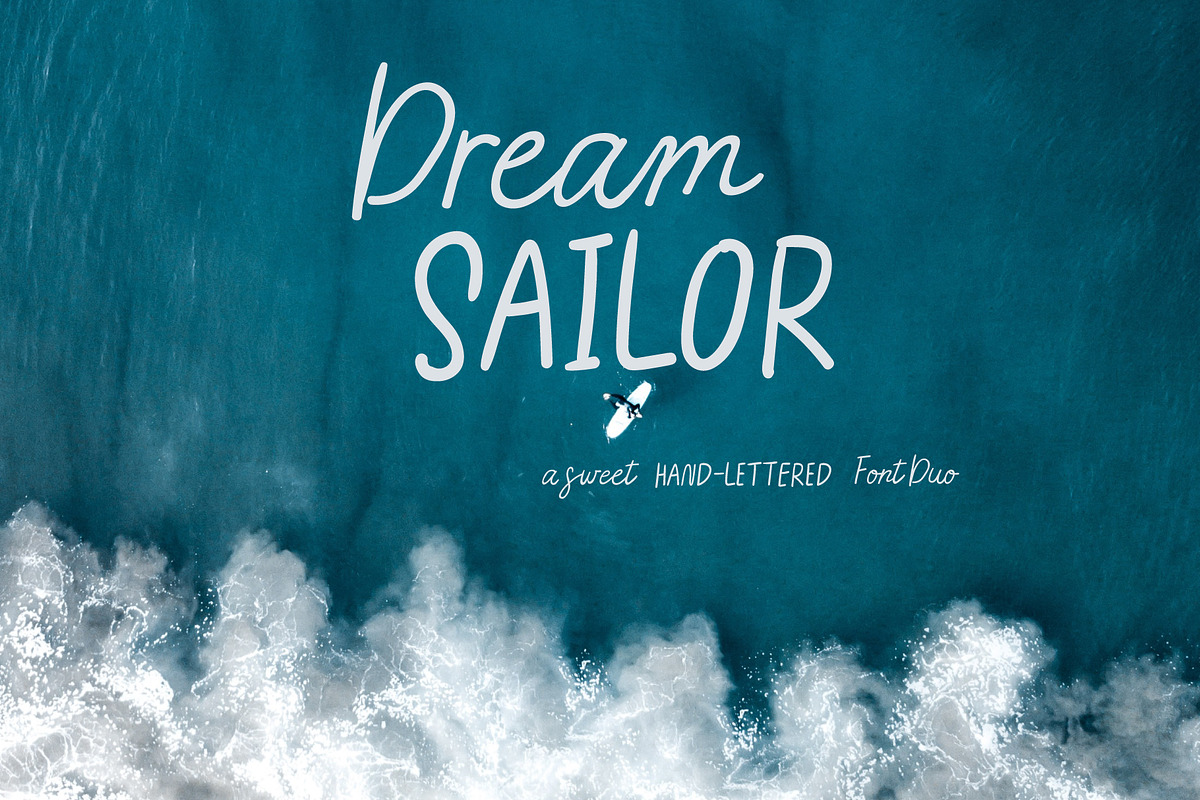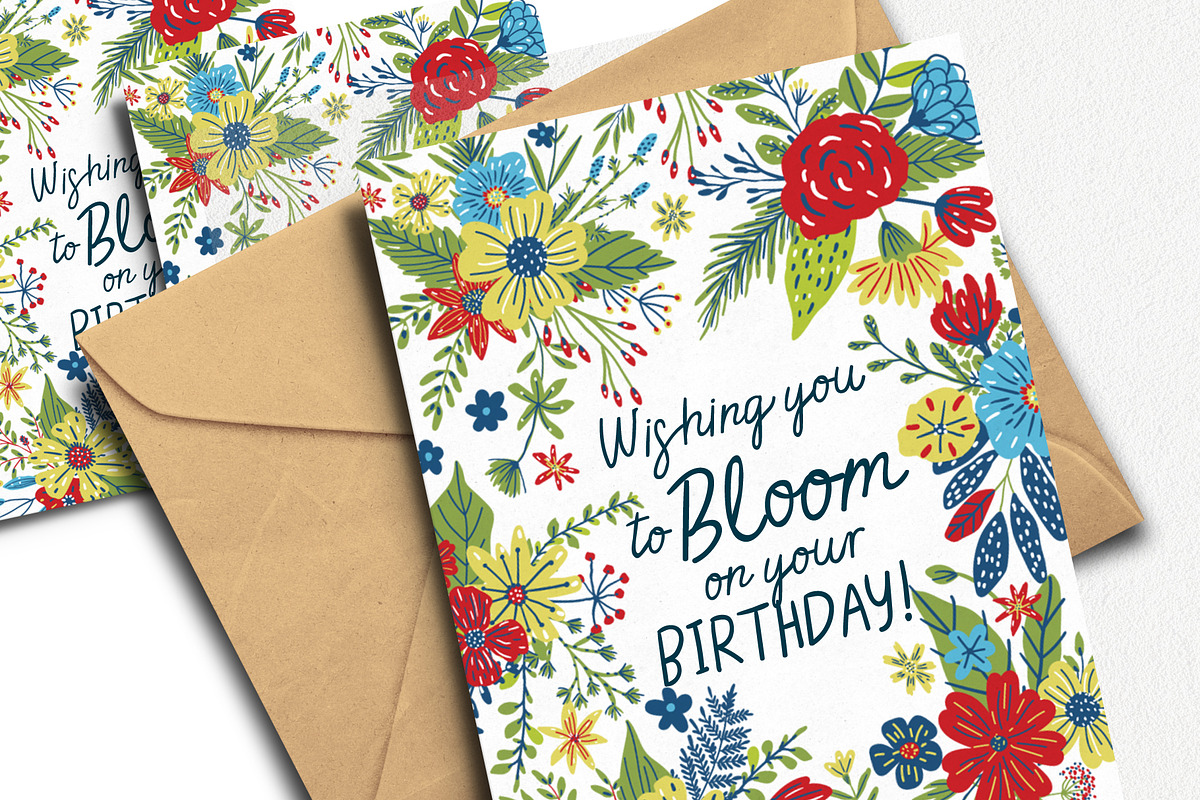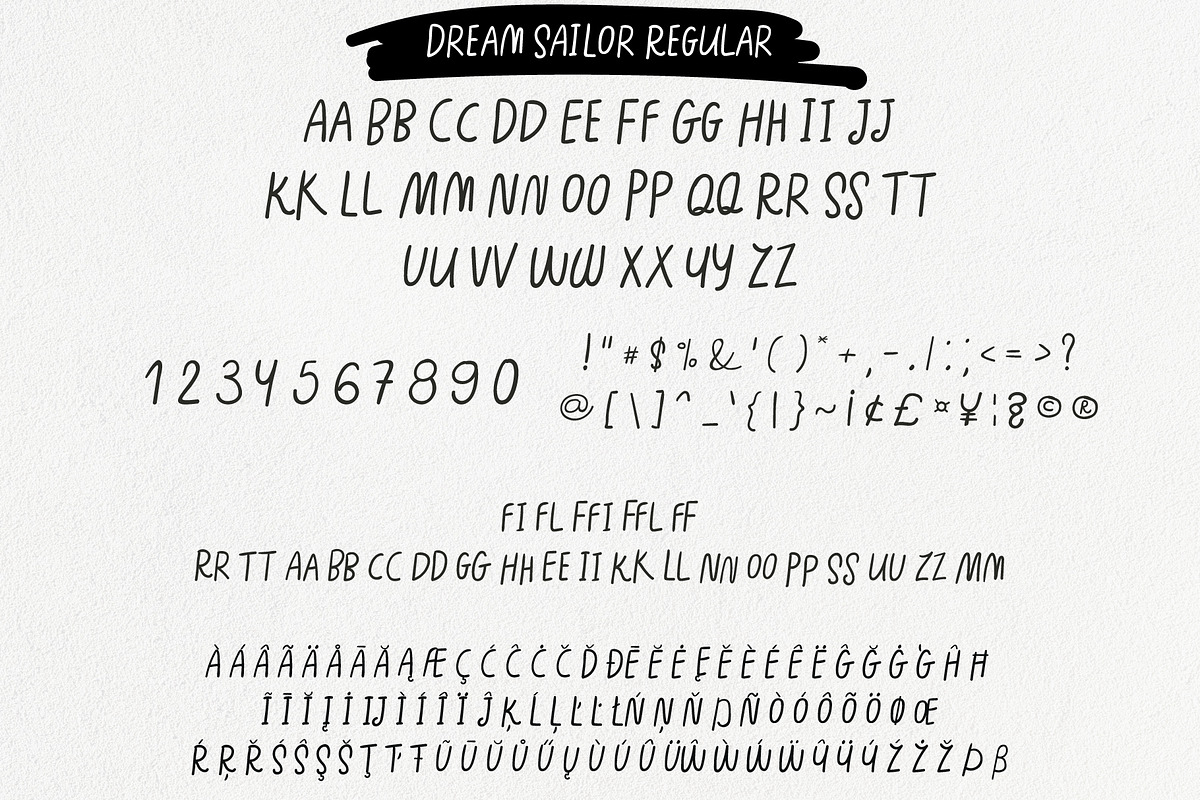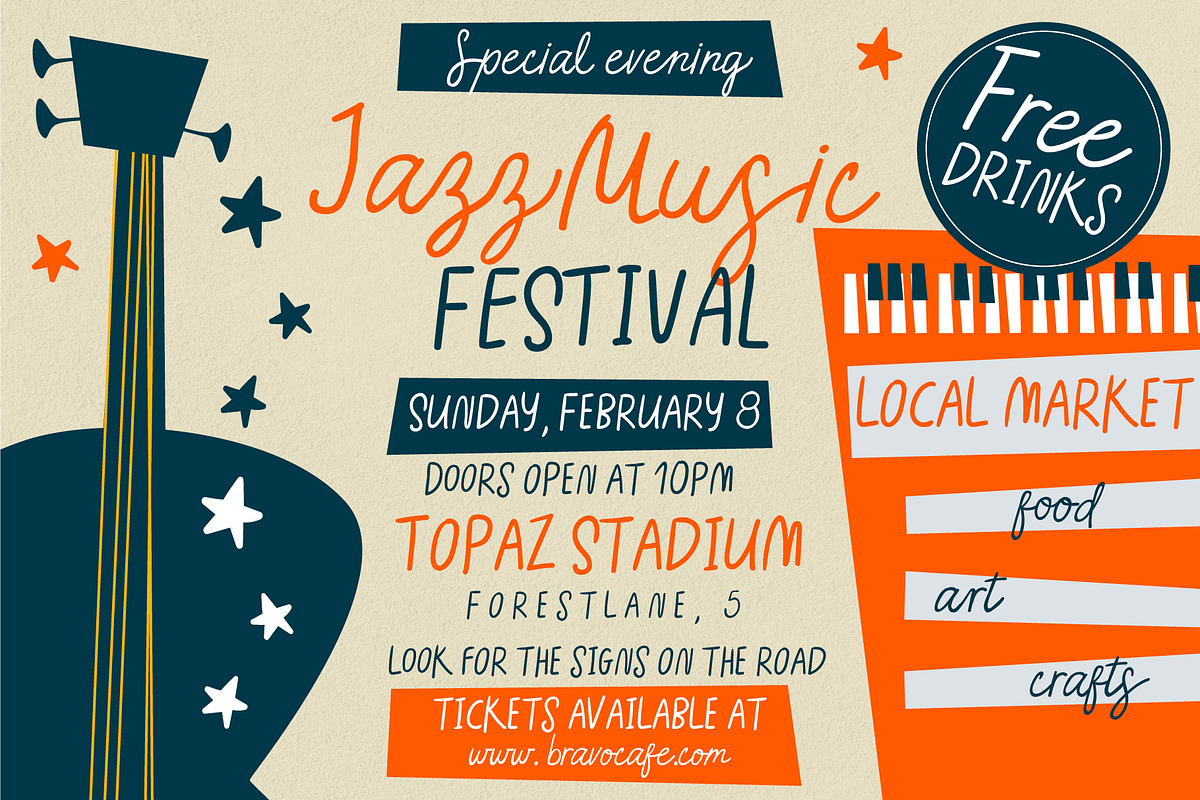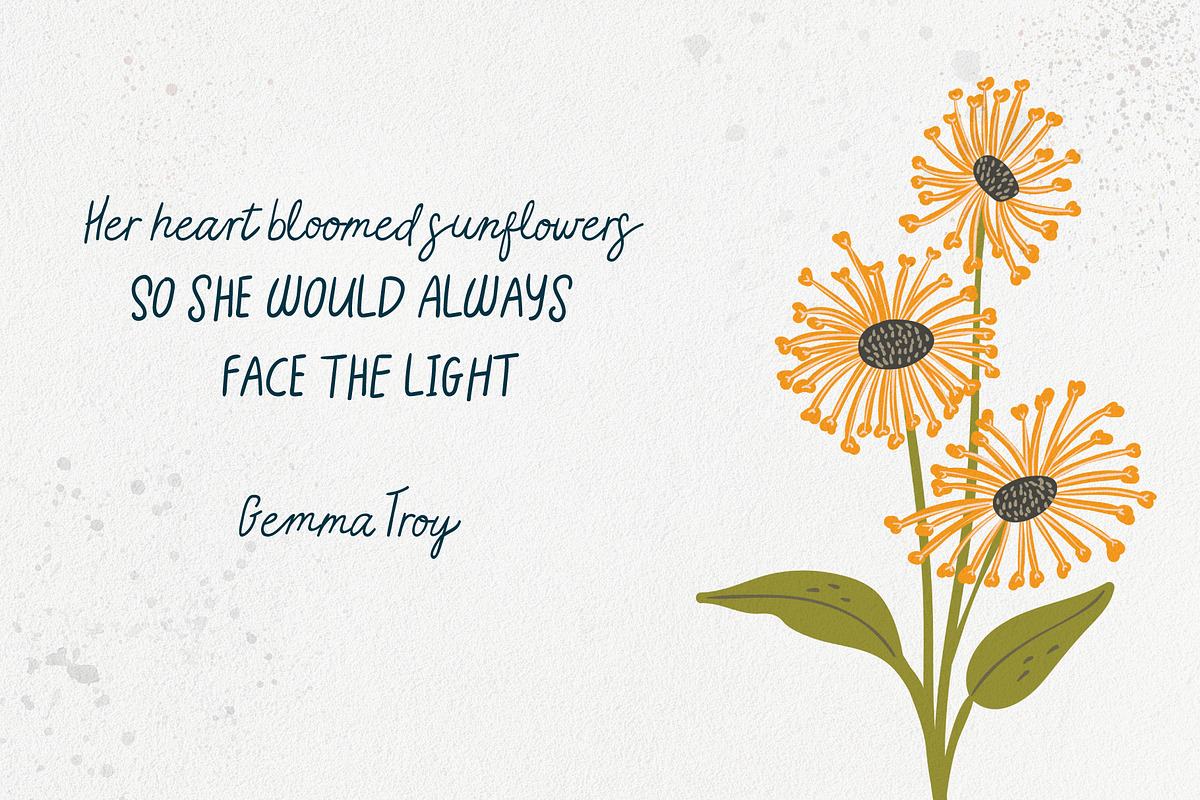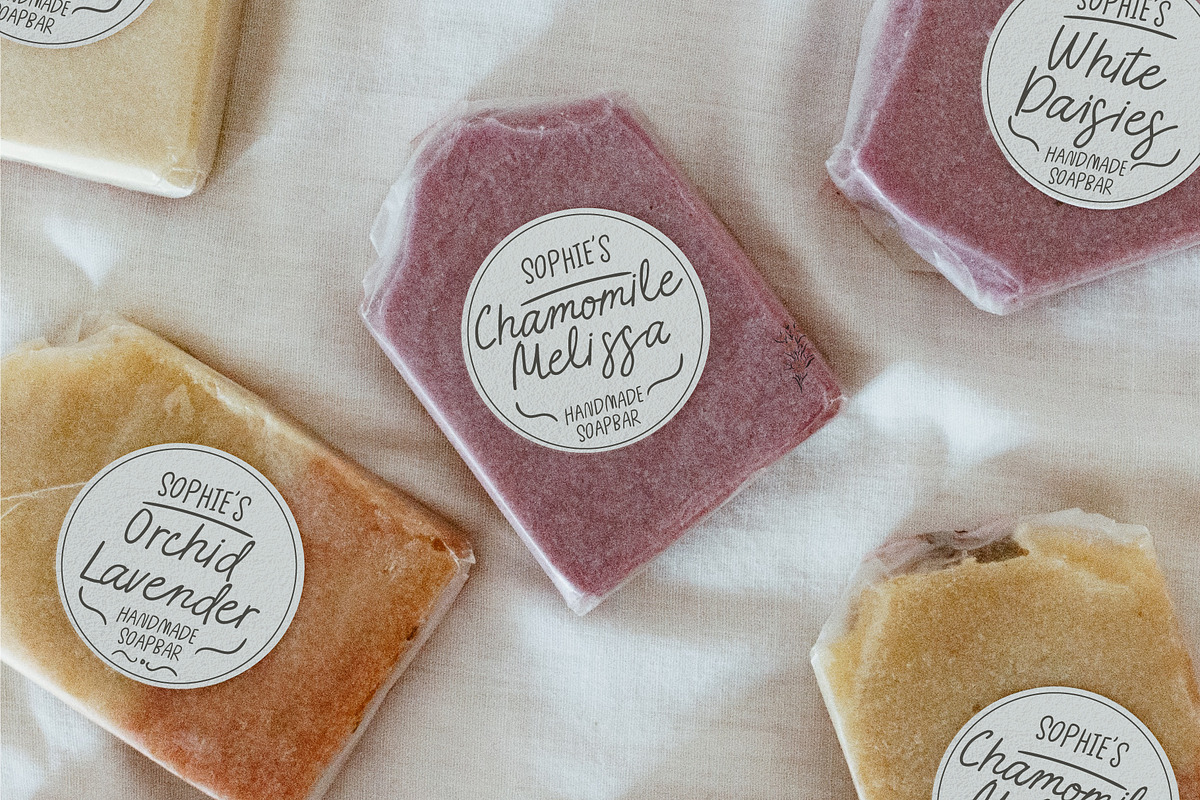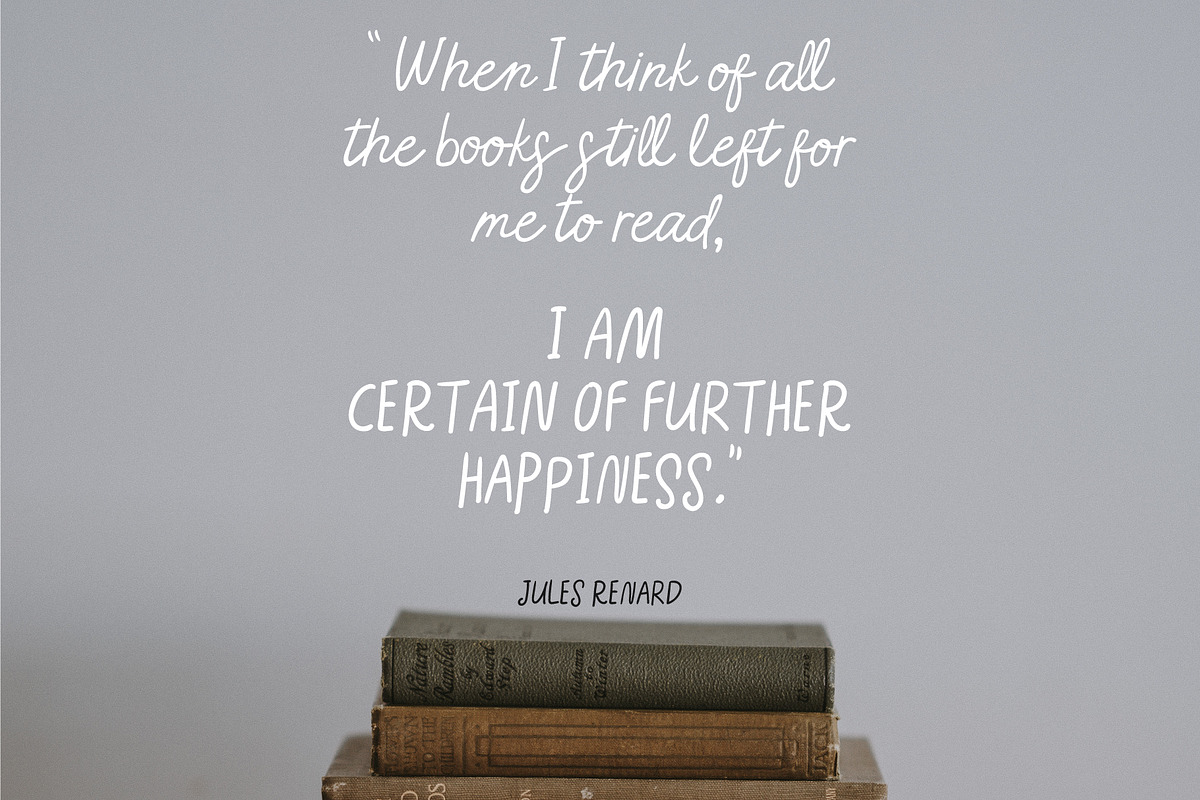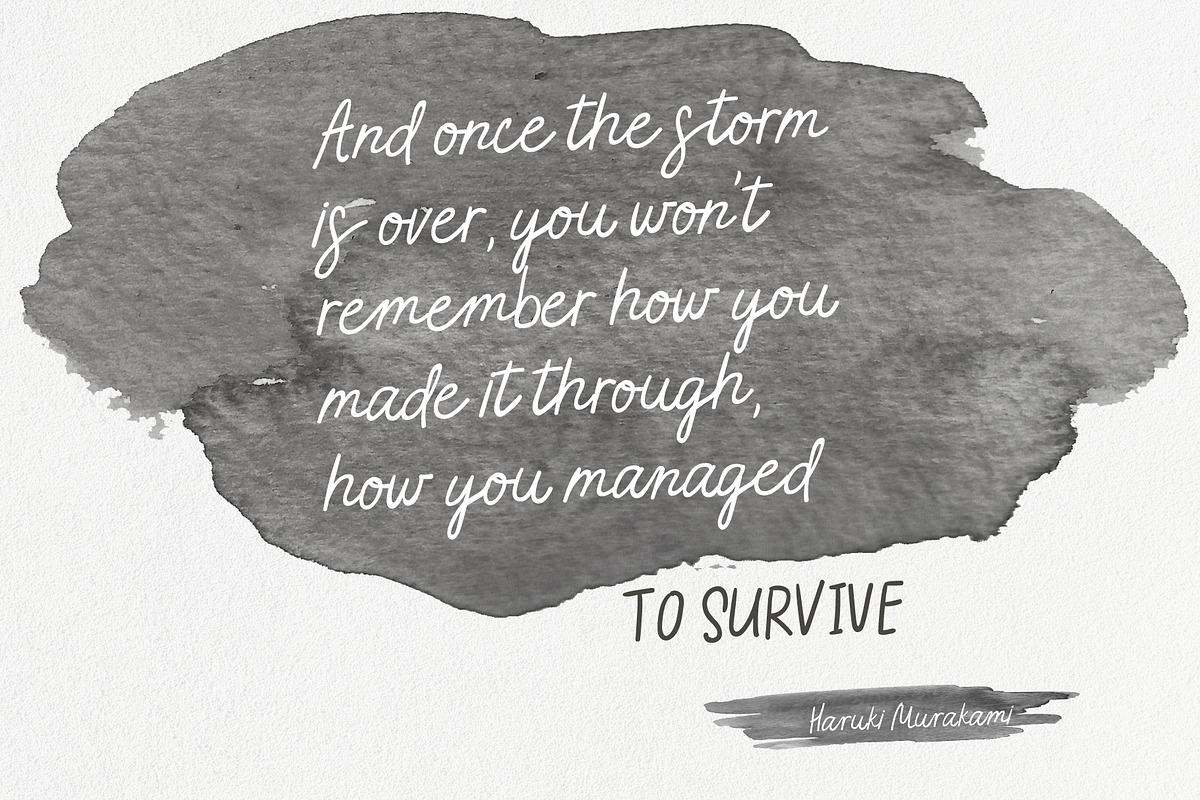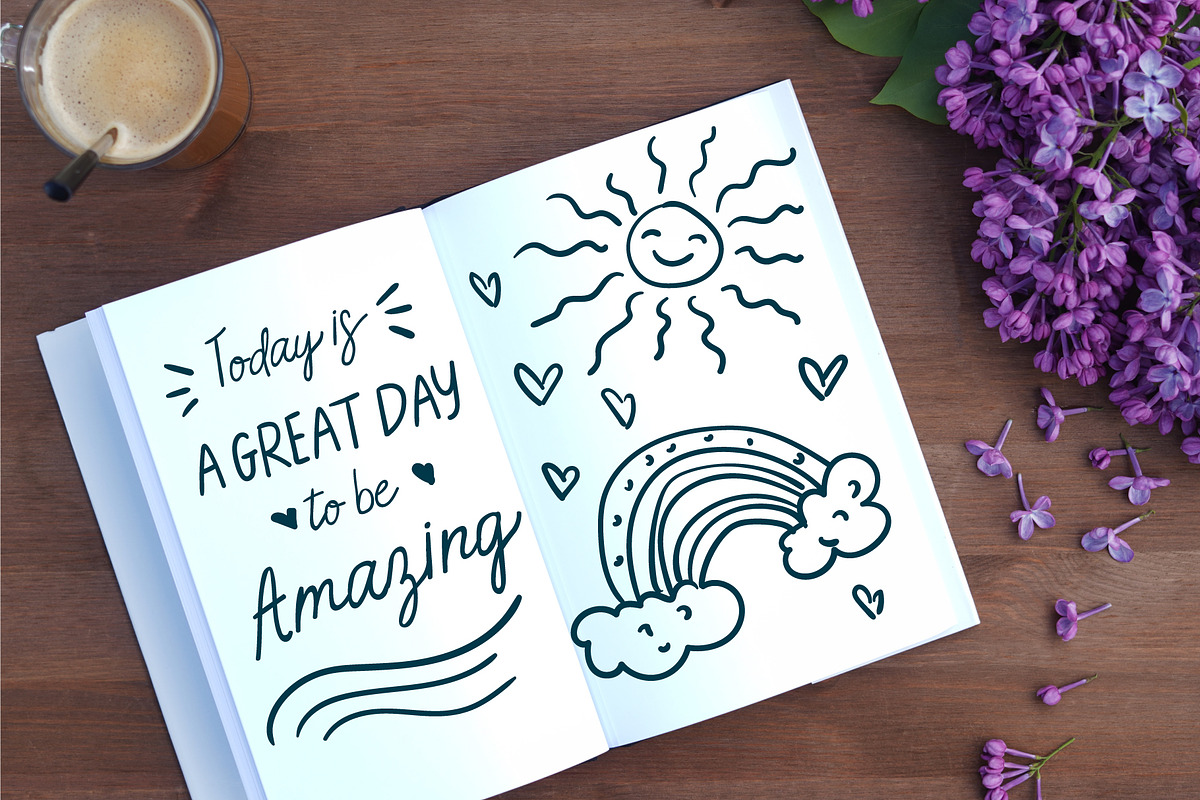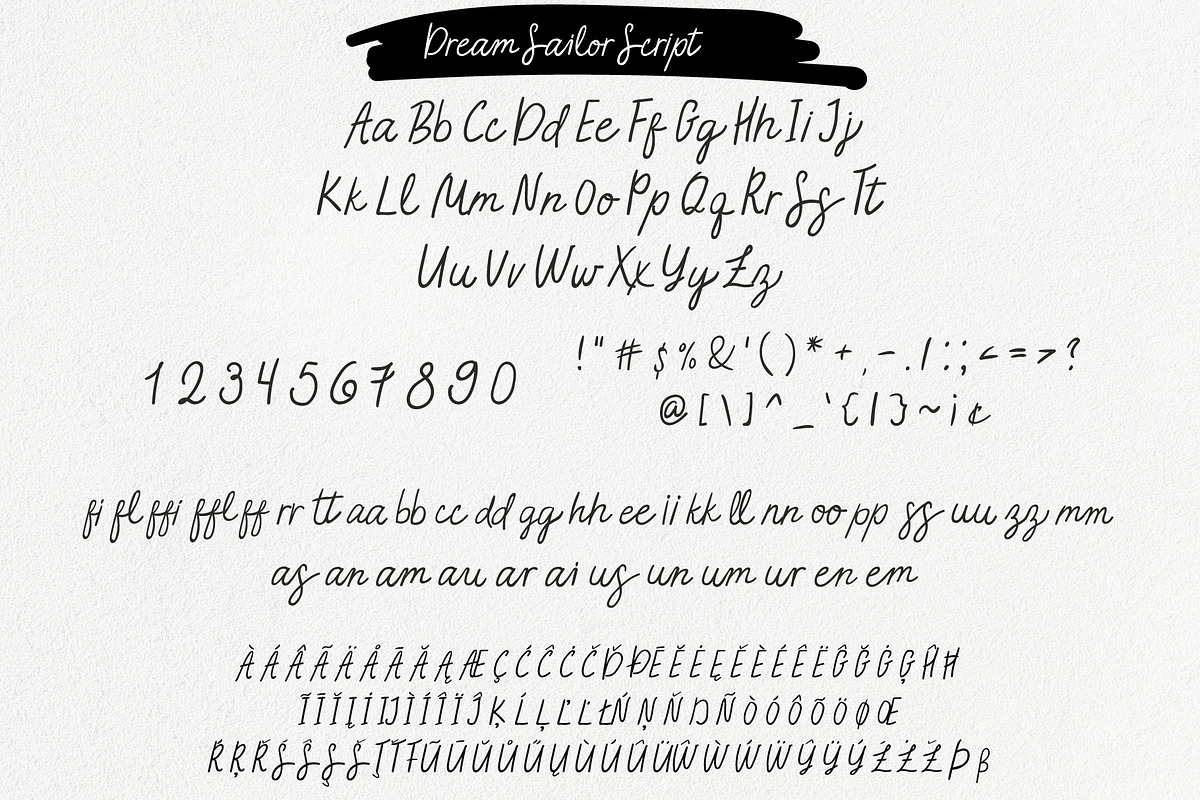
Dream Sailor Font Duo
Introducing Dream Sailor Font Duo.
This is a sweet hand lettered font duo, one is a script style acompined by regular style font.
This duo is perfect for greeting cards, children’s books, packaging, posters, personal notes and much more!
Great in large and small sizes. Combine them together to achieve hand lettered casual look. Both fonts have ligatures built in into Open Type features. Inernational languages included.
Each letter is handwritten by hand and developed into an inventive font, preserving carefully the Imperfect aesthetic look. What's inside: